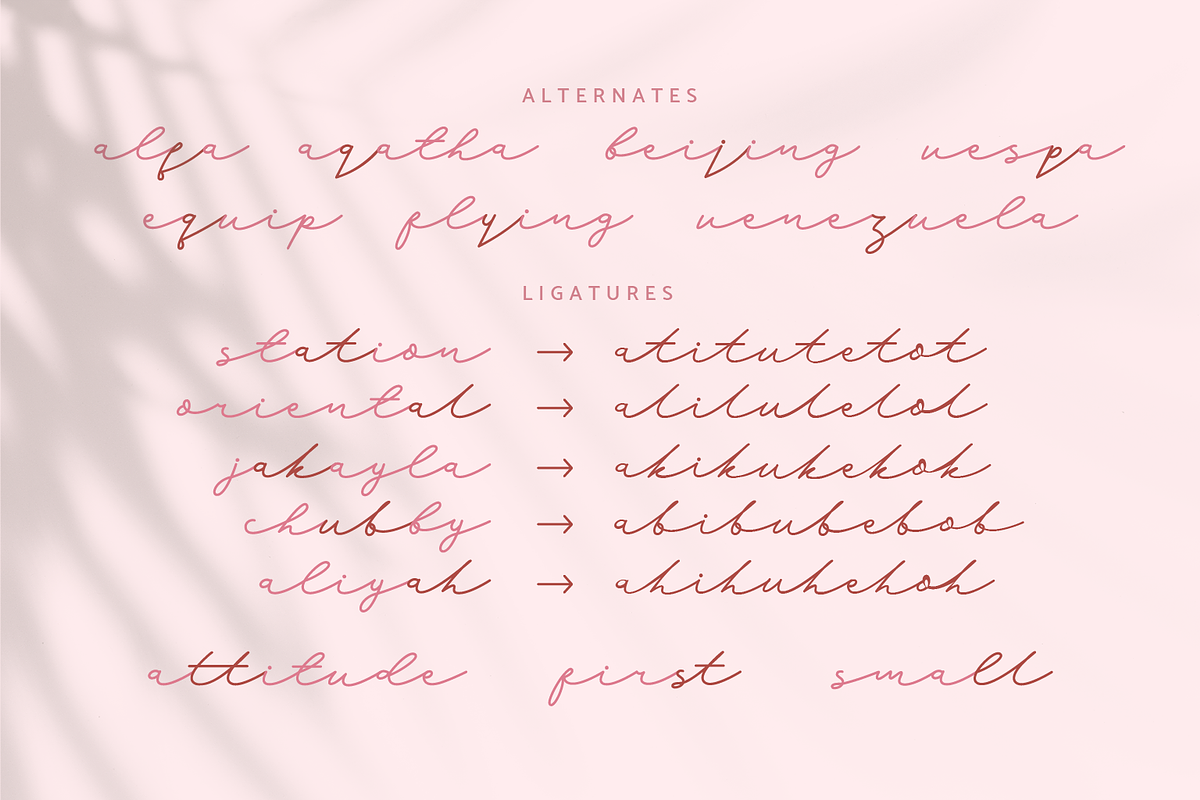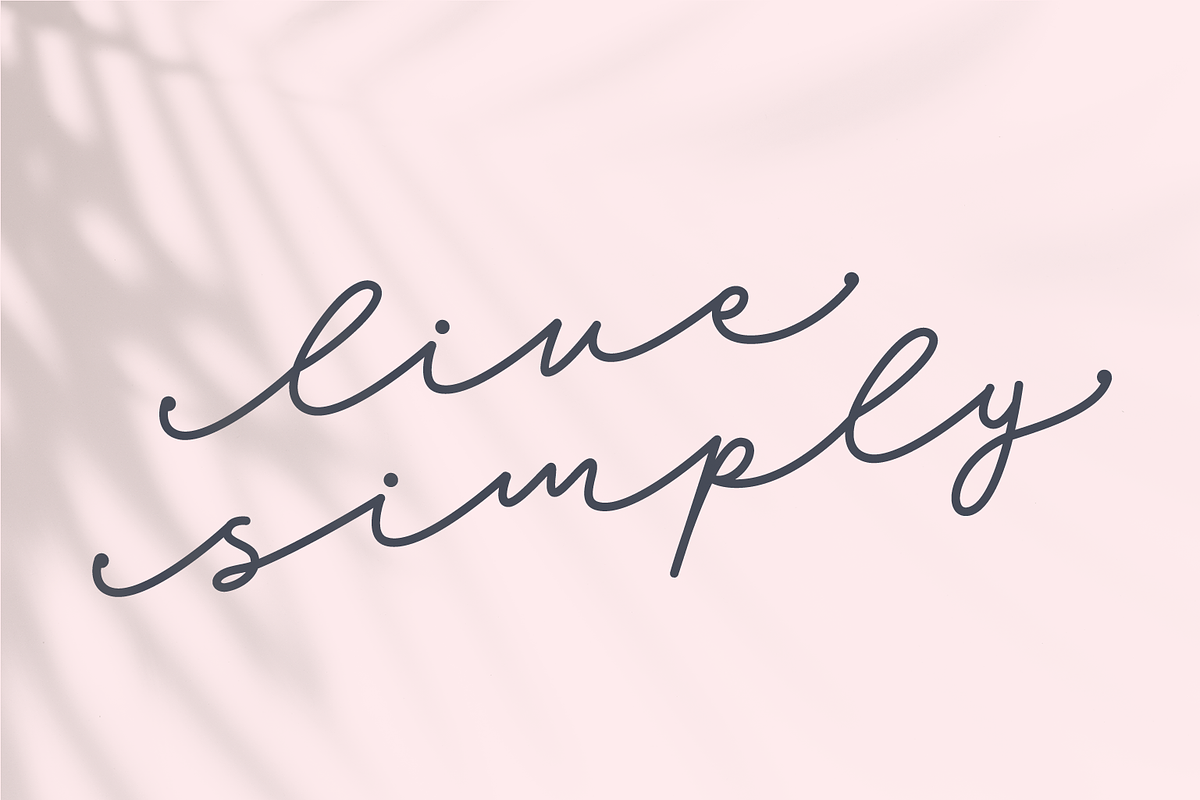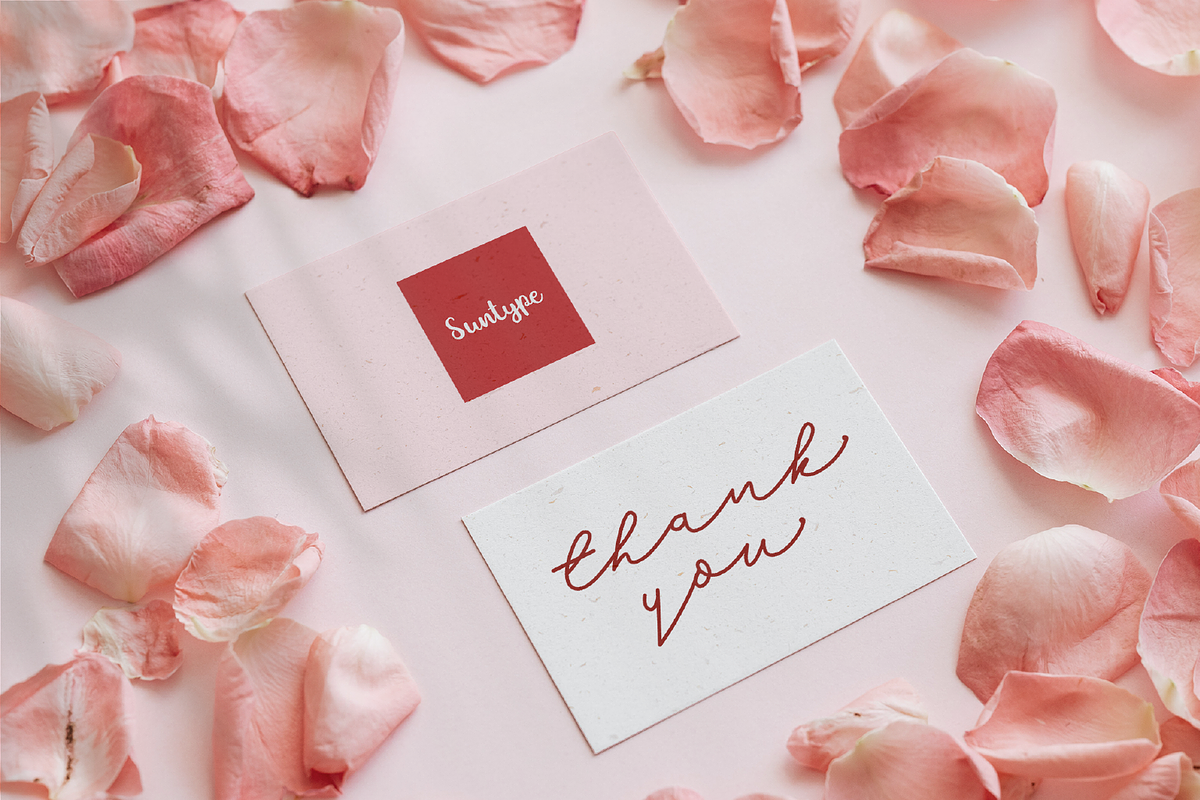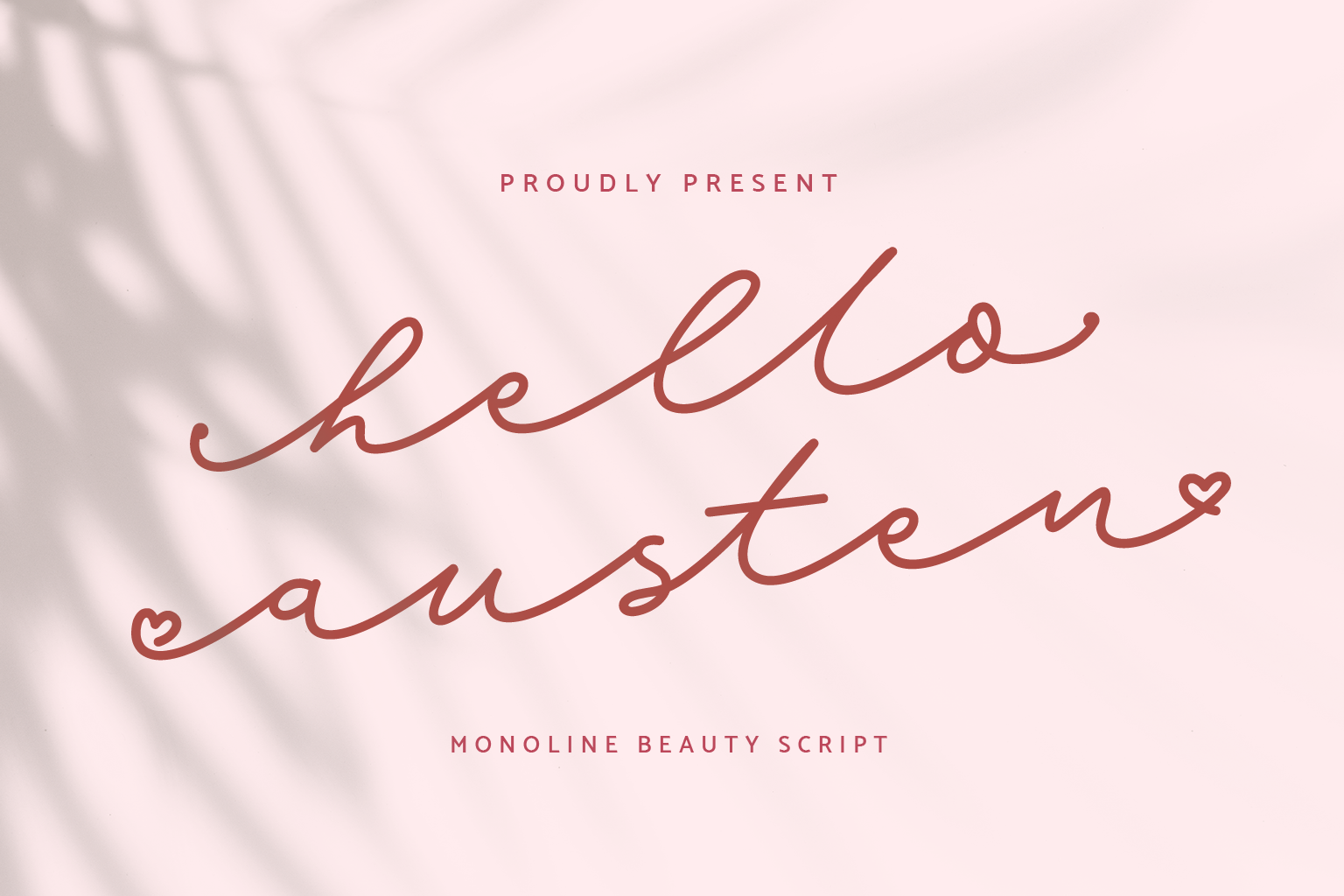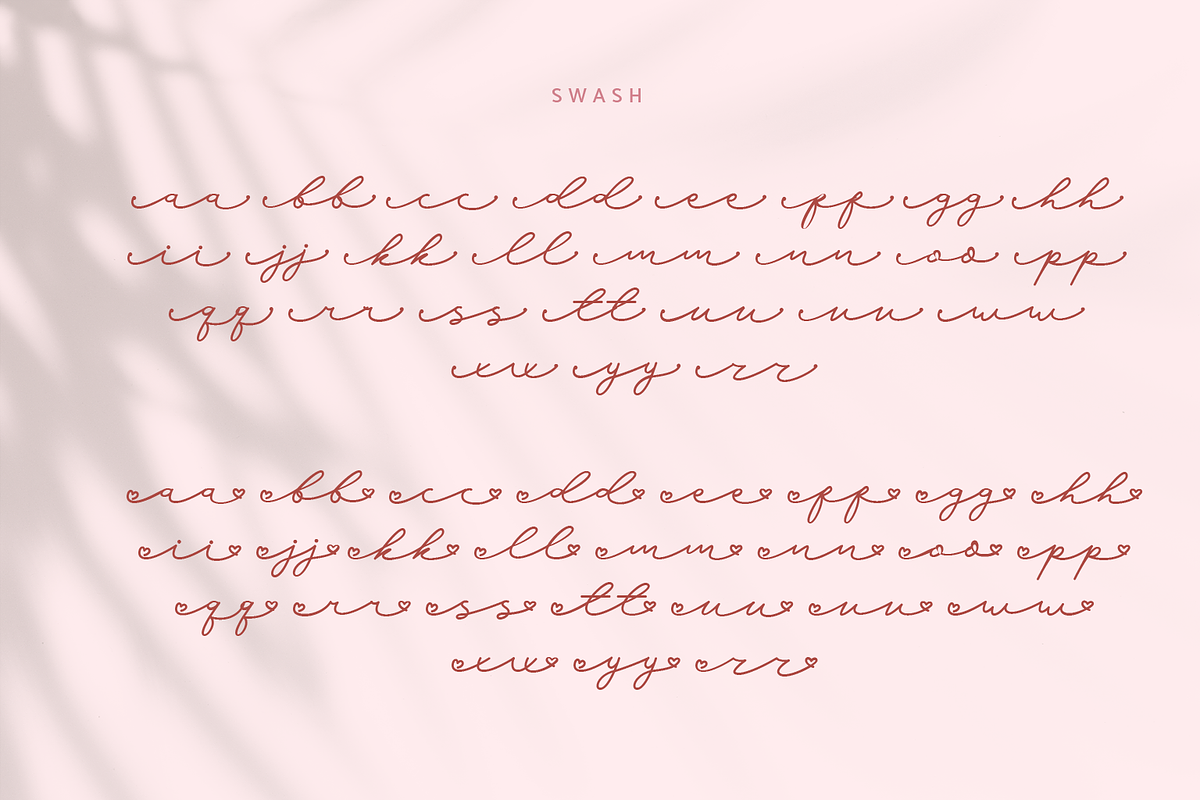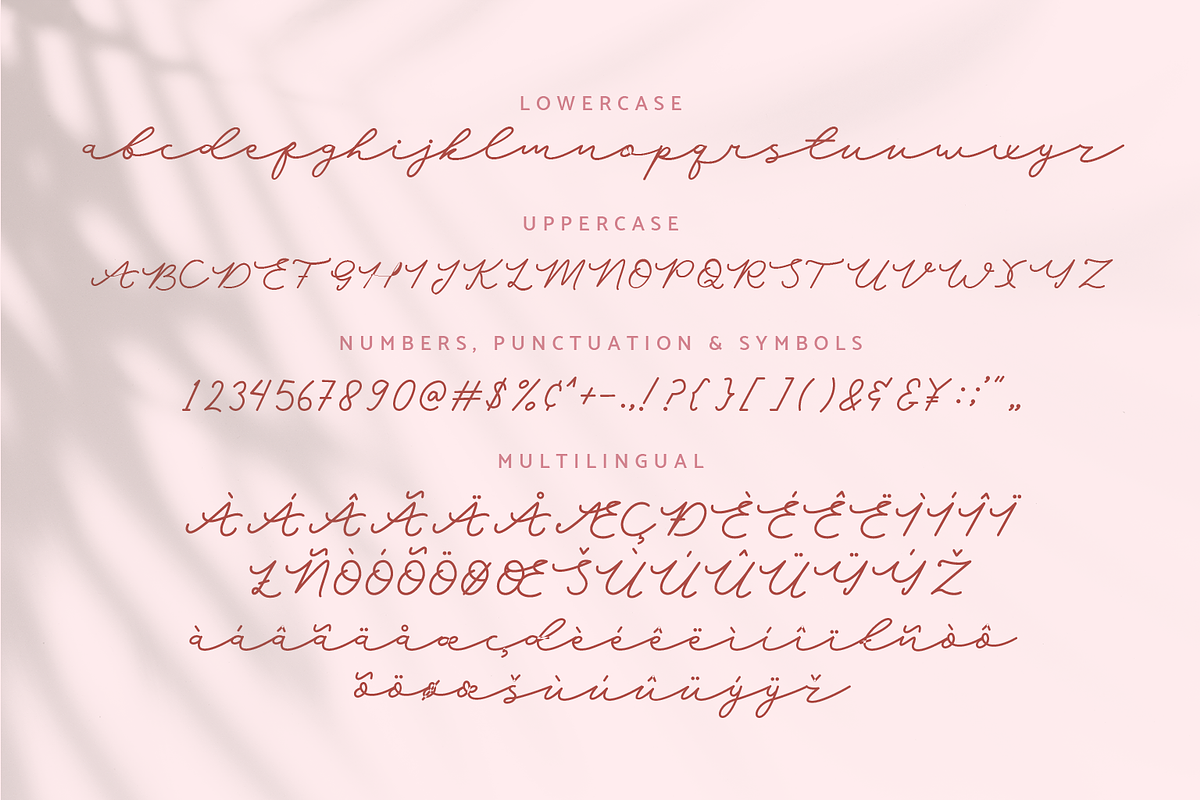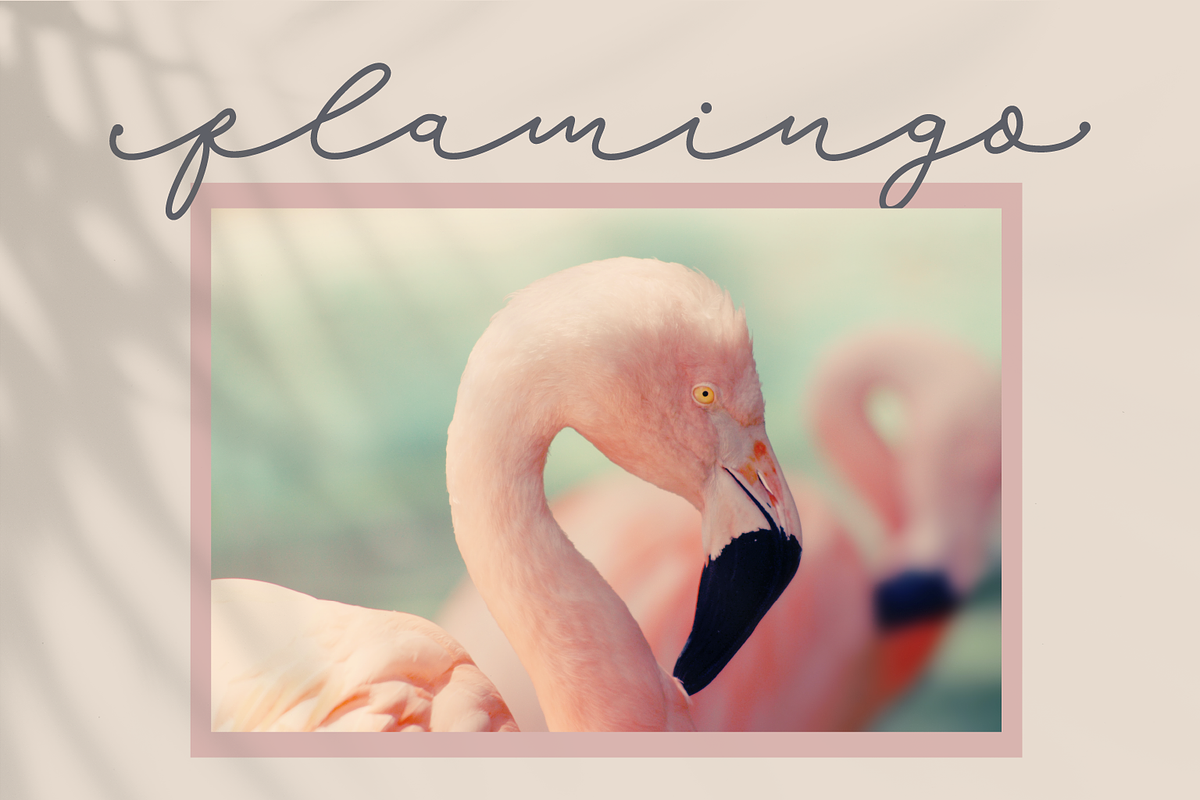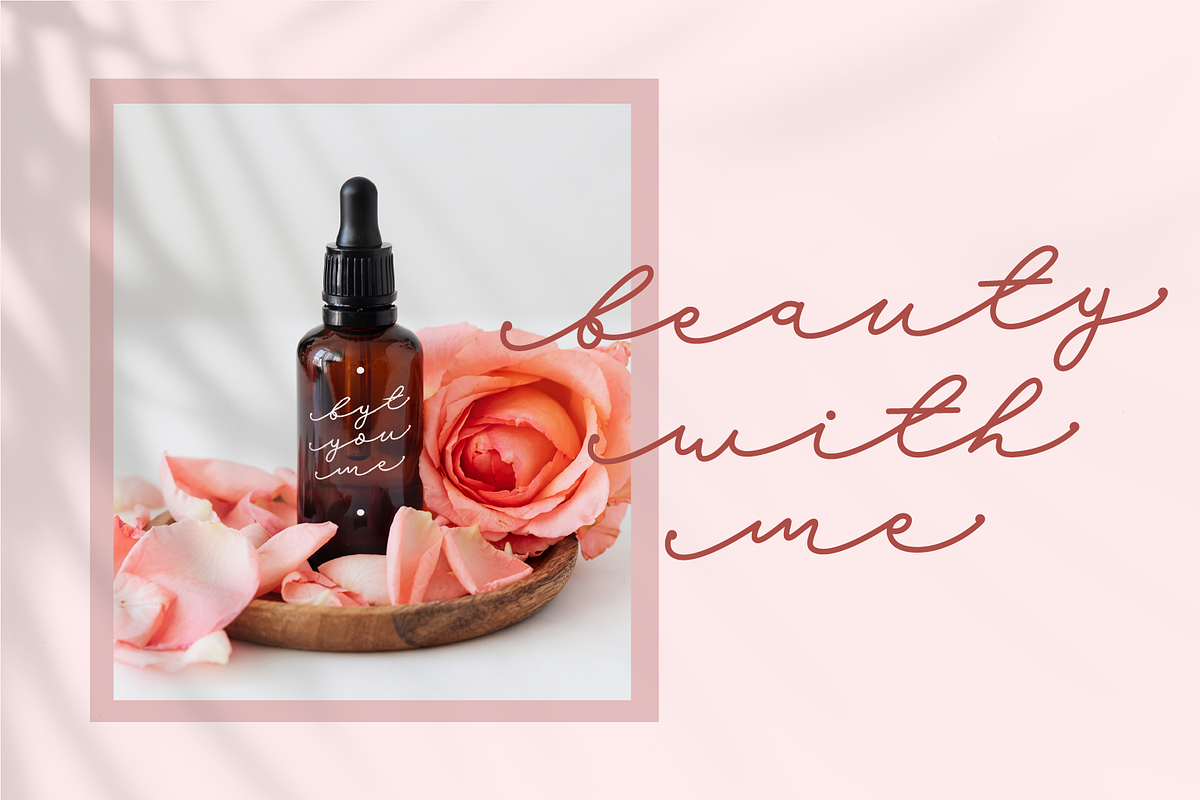
Hello Austen | Script Font
Hello Austen
Hello Austen Font is a beautiful and refined script font. It has a classy, elegant and modern look that can be used for logos, branding, invitations, stationery, wedding designs, social media posts, and much more! Thanks for checking out my shop, and feel free to get in touch! suntype07@gmail.com
About the Features
- Standart alphabet (lowercase, uppercase and number)
- Alternates/Swash